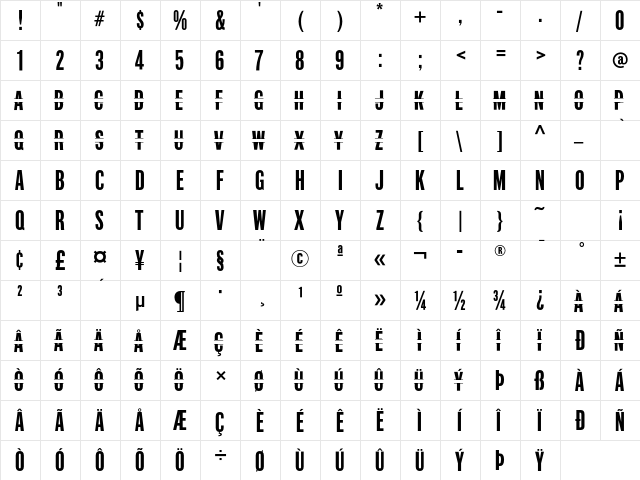
Industrial Gothic Banner Std Regular
Design Context for Industrial Gothic Banner Std Typeface
Industrial Gothic Banner Std has the quiet confidence of well-executed sans-serif typography: versatile, unobtrusive, and dependable at any size.
Font Pairing: Works well alongside a characterful serif or display font that can carry the expressive load while Industrial Gothic Banner Std handles the functional copy.
Pro Tip: Pair Industrial Gothic Banner Std with a display or serif font for headlines — its neutral character makes it an excellent supporting player in complex typographic systems.